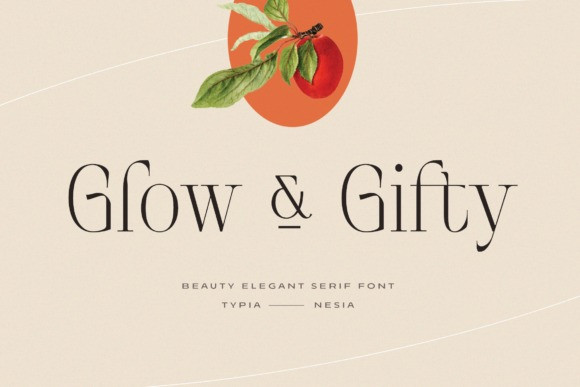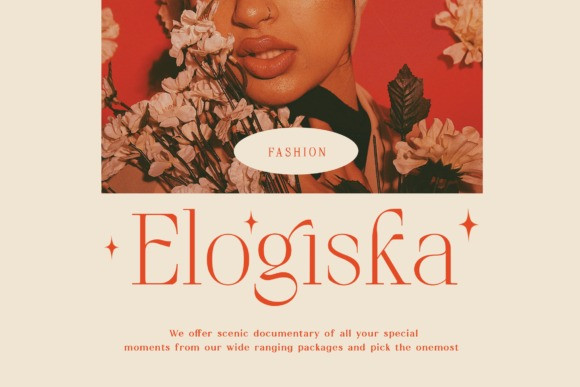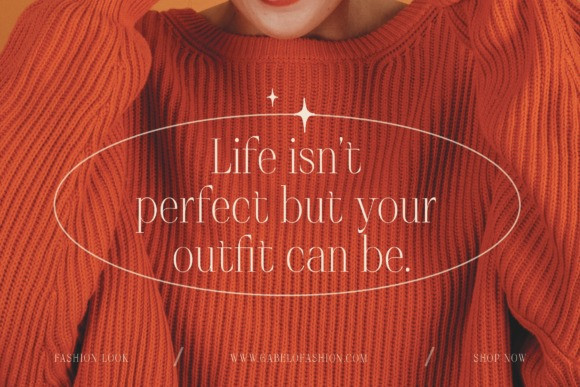
Glow and Gifty Font
Glow and Gifty is a delicate and slim serif font. It is suitable for book texts, documentation, business reports, business correspondence, magazines, newspapers, posters, advertisements, multimedia, and corporate design.